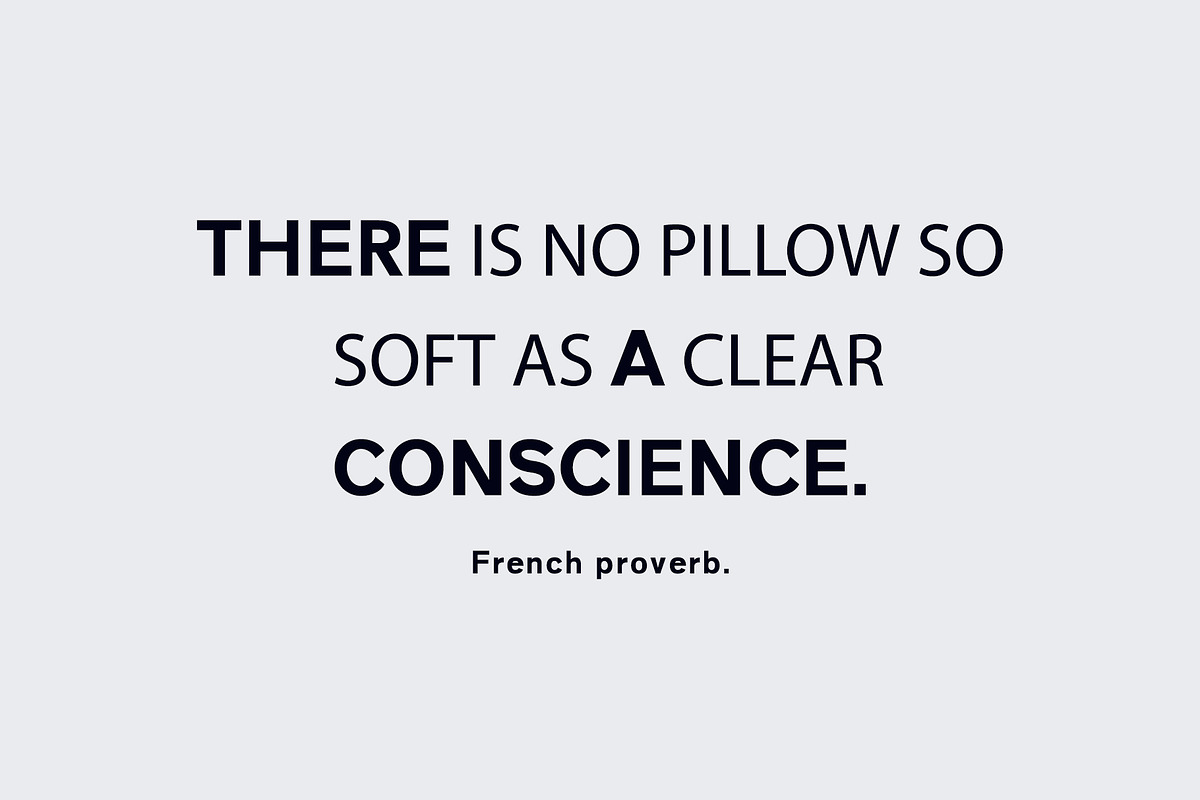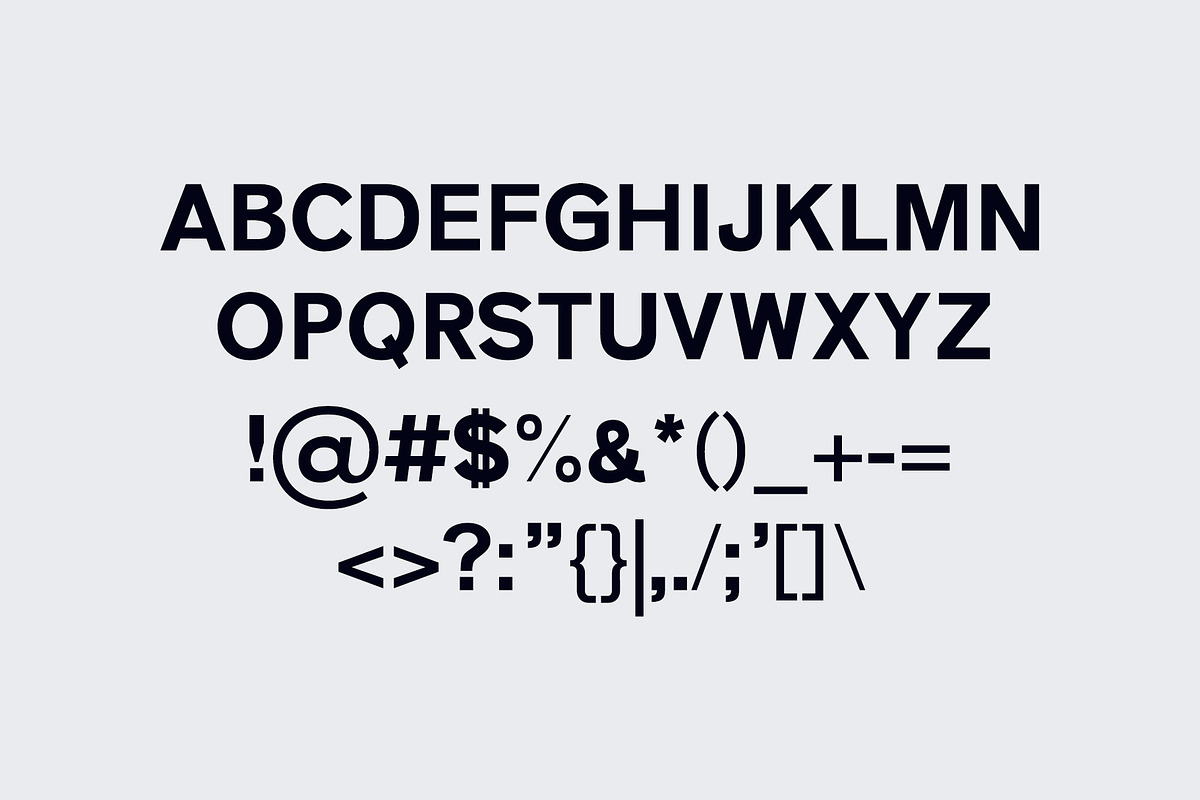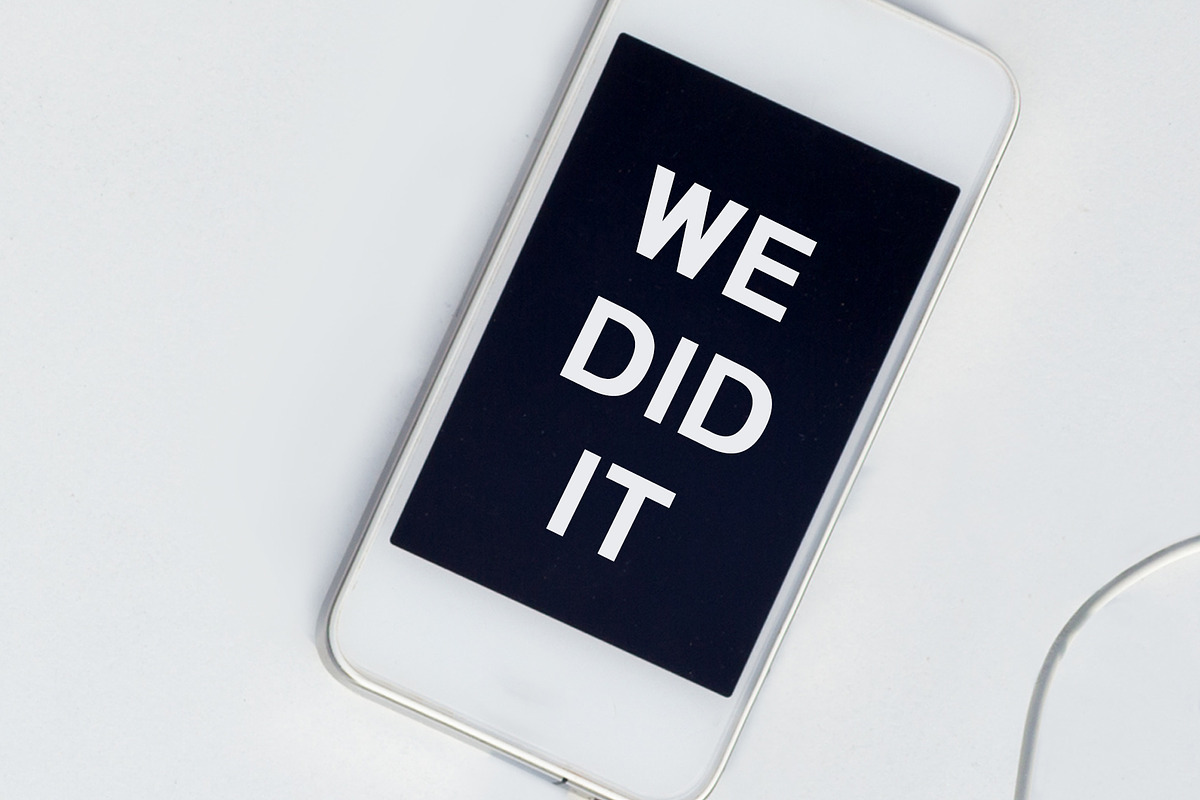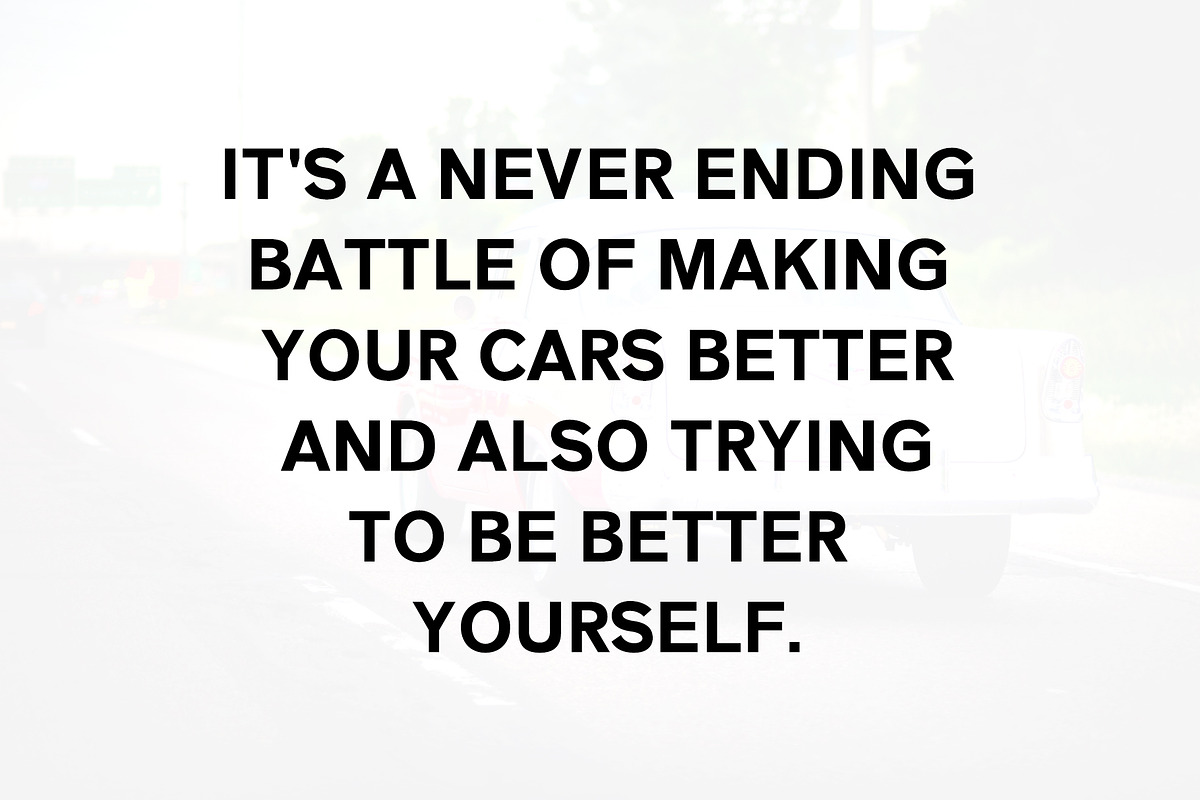
Zisel Sans Fonts Family Set
Zisel Sans Fonts Family Set by Creativetacos is a font selected for branding, posters, packaging, typography.
- It comes with uppercase, lowercase, numeral, punctuation, symbol & support multilingual.
- Regular, Black, Thin, Light and Outline Weights
- Updates : Added 1 More Blur Weight
- Zisel Thin
- Zisel Light
- Zisel Regular
- Zisel Black
- Zisel Blur
- Zisel Outline
Zisel Sans Fonts Family Set by Creativetacos fits naturally into Branding, posters, packaging, typography.